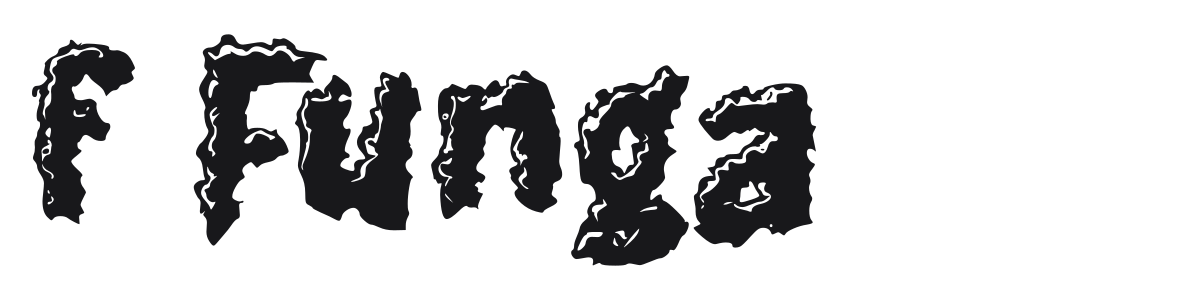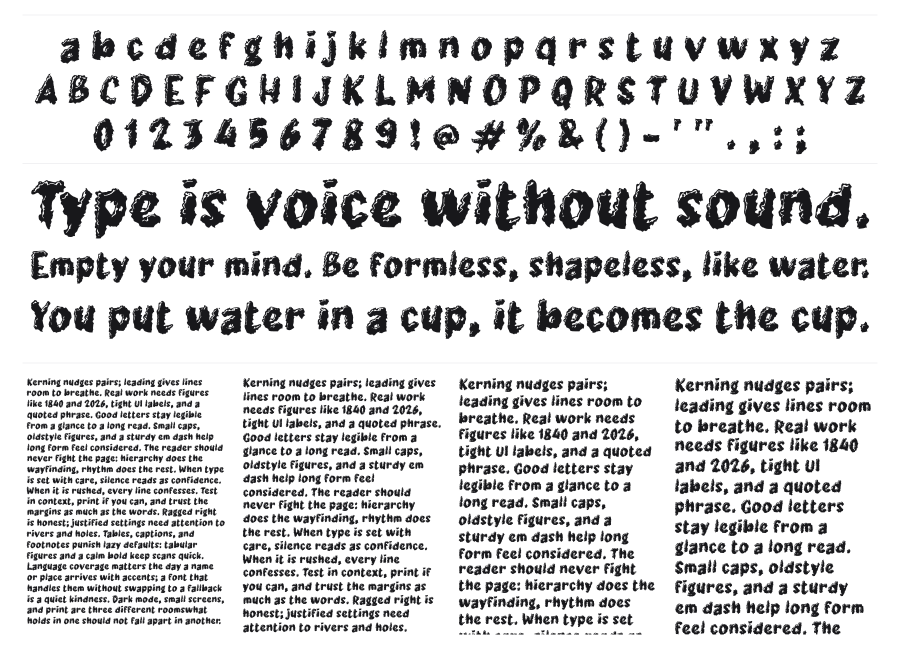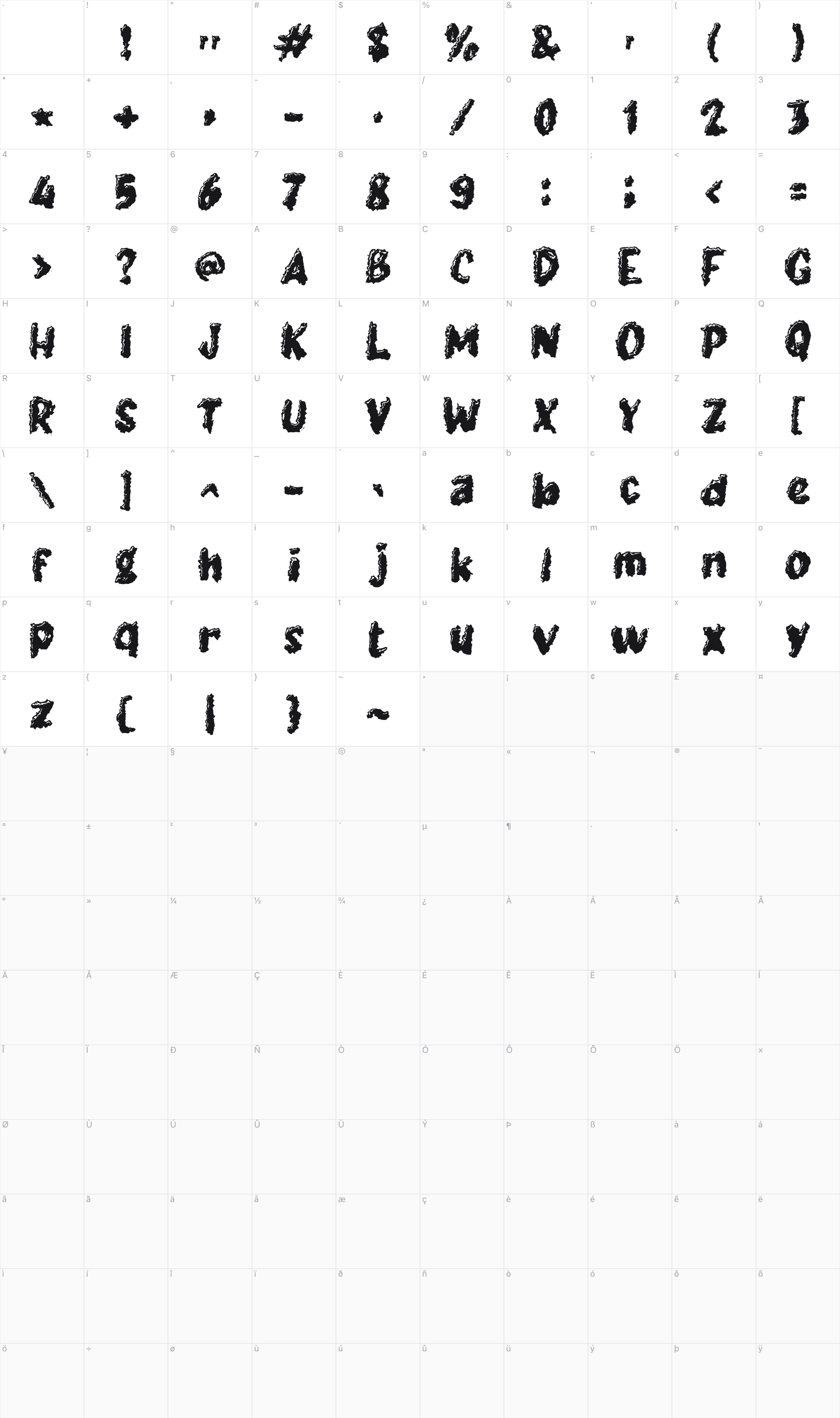
f Funga
Funga is a bold display font encrusted with rough, fungal-like texture that makes every character look eaten away. The underlying forms are chunky and legible at large sizes, but the heavily eroded outlines give it a distinctly unsettling, organic character. It suits horror posters, heavy music branding, and any project that needs a raw, decayed edge.